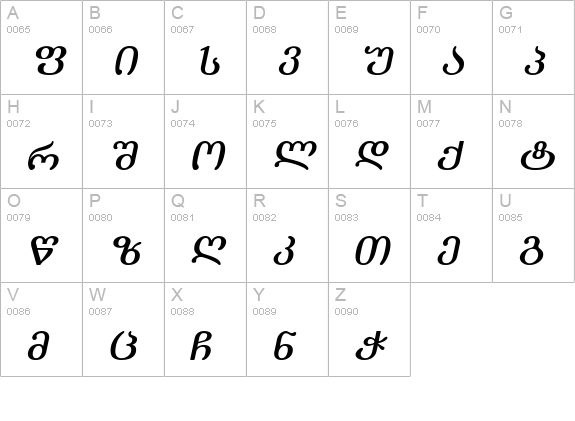
Literaturuly-ITV Italic Font Details
Literaturuly-ITV Italic is a distinctive, italic variant in the Literaturuly typeface family \xE2\x80\x94 well suited to design and typography projects.
The Literaturuly-ITV Italic font is a stunning and elegant typeface that exudes sophistication and style. Its sleek and slanted design adds a touch of flair to any project, making it perfect for creative and professional applications alike. The italicized letterforms of Literaturuly-ITV Italic convey a sense of modernity and refinement, making it a versatile choice for a wide range of design projects. Best of all, Literaturuly-ITV Italic is available for free download at FontsMarket.com, making it easily accessible to anyone looking to elevate their typography game. Whether you're working on a branding project, designing a website, or creating eye-catching marketing materials, this font is sure to make a lasting impression. Don't miss out on the opportunity to enhance your designs with the timeless elegance of Literaturuly-ITV Italic. Download it today and let your creativity soar!